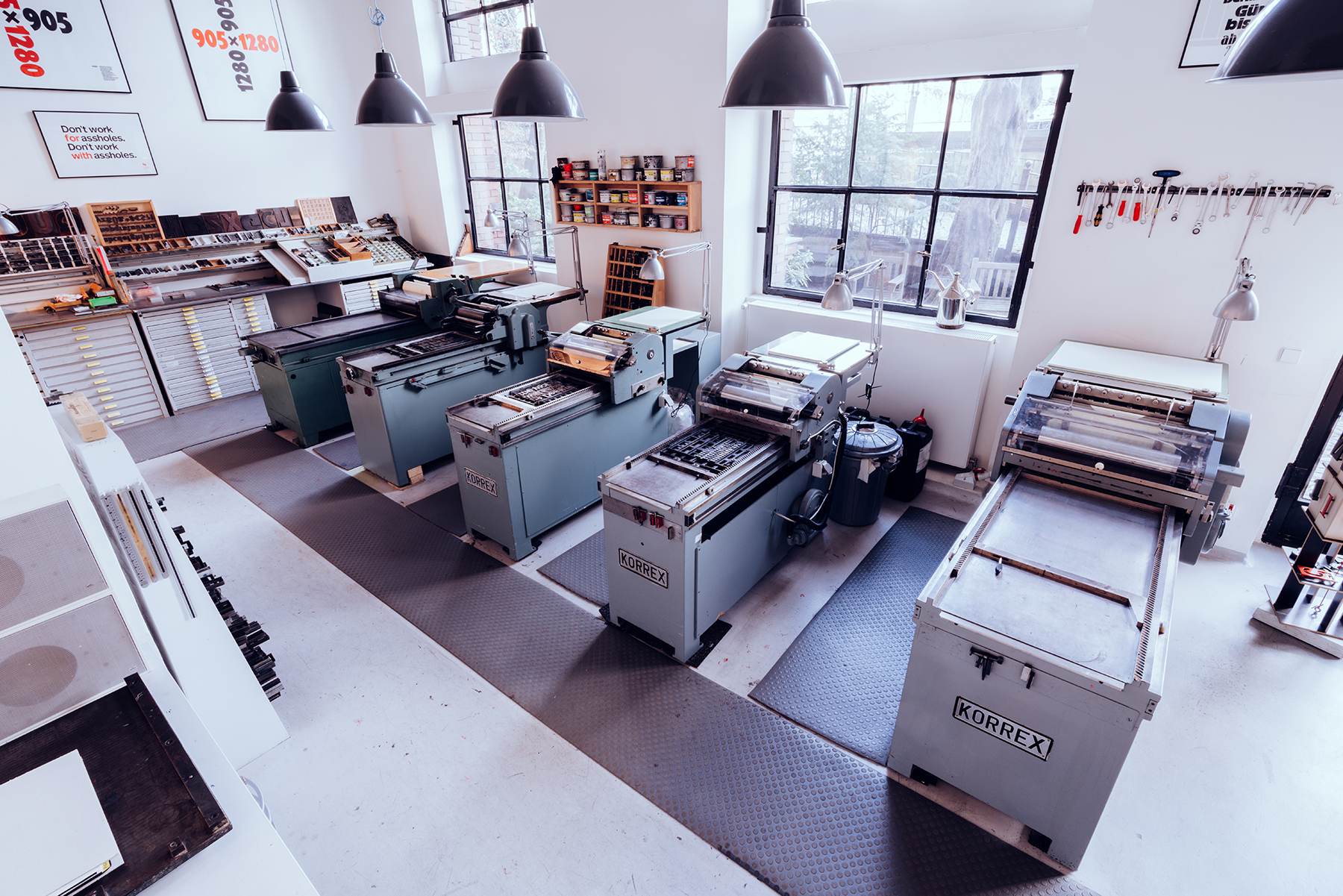
Q&A Erik Spiekermann
Biography Erik Spiekermann’s graphic identity and design work has been a distinctive part of the visual landscape since the 1970s. As founder of MetaDesign and Edenspiekermann, he gave a defining look to Berlin’s public transport system, Deutsche Bahn, The Economist and companies such as Audi, Volkswagen and Bosch, among others. His work has been recognized with Europe’s most prestigious prizes and honours, including the Royal Designer for Industry title from the British Royal Society of Arts. FontShop, the first mail-order distributor for computer fonts, can be traced to his creative initiative, as can numerous typeface designs, such as ITC Officina and FF Meta – both of which are now considered classics. To this day, he remains a central figure in the German and international design scene. After retiring from active business, he now runs an experimental letterpress workshop in Berlin under the motto »Hacking Gutenberg«. He spends his time between Berlin, London and San Francisco.
Interview
What is your favourite way to start a day?
Erik Spiekermann Drink tea, then check mails and the schedule for the day. There is no typical day. I don’t run a design studio anymore, so my time doesn’t depend on other people’s schedule
What is your work environment?
Erik Spiekermann I have a desk at home in Berlin, a kitchen table at my son’s house in London and a desk at my wife’s house in San Francisco. Plus various tables and spaces at our typographic workshop.
Do you listen music while working?
Erik Spiekermann I sometimes have the radio on when I’m on my own.
Do you read news?
Erik Spiekermann Lots of news, online and printed.
Do you practice any sports?
Erik Spiekermann I ride bikes – to work, to shop, to go to places, for fun. I ride all the time. Different bikes for different circumstances.
“That work can be fun and that it’s important to work with others. I wouldn’t have achieved anything if I hadn’t surrounded myself with good people. ”
– Erik Spiekermann
Erik at the P89a experimental letterpress workshop in Berlin
What drives you to create new typefaces?
Erik Spiekermann A project, a problem to solve. When Johannes Erler wrote the book about me, I designed the first weight of Real just for that book. It then got made into a large family with the help of Ralph Du Carrois. But that was my only fun project, everything else always had a purpose behind it.
How much a software and its fixed rules can determine a type project?
Erik Spiekermann I leave most of the technical things to colleagues these days and they seem to thrive on those constraints.
What is your ratio of self-initiated typefaces vs. typeface for clients?
Erik Spiekermann I just said that. My first typefaces in the 1970s were re-drawings of metal typefaces from Berthold. So that was self-initiated but made for that client. If I do something, I do it with passion or I don’t do it.
Redrawing type classics or inventing new forms?
Erik Spiekermann I have mostly done text faces which have to stick to classic models – an a is an a. I look at problems and how to solve them with type. Could be a technical issue like legibility at small sizes on bad paper, like FF Meta which was first designed for the German Pots Office in 1985. Could be a new challenge like office correspondence that doesn’t need monospace type anymore but still wants to evoke that style – that’s how ITC Officina came about.
Is it possible to draw a typeface for a language we do not know?
Erik Spiekermann No. The Non-Latin versions of my faces were all done by native speakers.
What do you think of this trend of free fonts?
Erik Spiekermann There are no really free fonts. Google pay designers and makes fonts available for free, but Google makes money by these fonts being used in websites that Google uses for its searches. As the quality of Google fonts has become better, websites have started to look better, but brands will need to distinguish themselves from that generic look. I’m divided on this: at least we see more than Arial, Times and Georgia, but fonts being available for free has made a lot of young designers expect everything to be free.
Globalisation?
Erik Spiekermann We have blandness through globalisation and we have strong currents against it. Local is better, but global is inevitable.
“If I do something, I do it with passion or I don’t do it.”
– Erik Spiekermann
BVG, Berlin
What made you choose design?
Erik Spiekermann I drifted into it by doing small jobs while still in school. I could draw, write and I had a small printing press when I was 15.
Have you ever got a mentor?
Erik Spiekermann I went to an evening class for layout and mark-up, run by Gunter Gerhard Lange, Berthold' artistic director. He encouraged me, we became friends, I drew my first typefaces for Berthold when I was 30 and eventually he wanted me to be his successor in the 80s. Which I had to refuse because nobody could have filled his shoes. I also worked for a lot of printers and typesetters in Berlin and in London and picked up most of what I know by watching and doing.